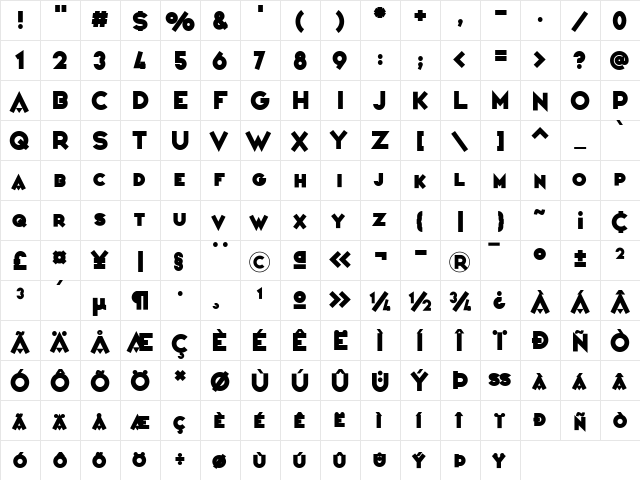
Variet頃onf鲥ncier Regular
| Foundry | Peter Wiegel |
| Designer | Peter Wiegel |
Design Context for Variet頃onf鲥ncier Typeface
Variet頃onf鲥ncier is a composed and adaptable typeface that performs quietly and consistently across a wide range of design contexts.